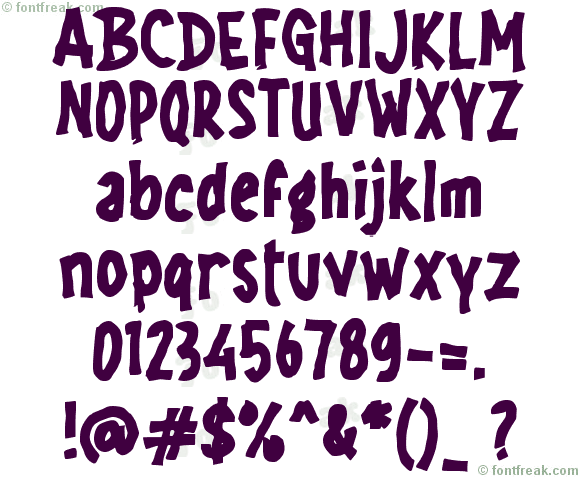
FODEN
About FODEN
FODEN, designed by Wahyu Eka Prasetya, is a captivating display font that draws attention with its unique and contemporary aesthetic. This sans-serif typeface showcases a bold and playful character, making it ideal for various creative projects. The font features a medium stroke weight with a balanced contrast that enhances legibility while adding a touch of sophistication. Its clean lines and well-defined shapes provide ample spacing, allowing for easy reading and a modern feel. FODEN’s distinctive style is punctuated by subtle decorative elements that give it personality without overwhelming the viewer.
This font is perfect for a variety of applications, including vibrant wedding invitations that require a touch of elegance, eye-catching movie posters that demand attention, and trendy restaurant menus that entice customers. Additionally, FODEN is well-suited for social media graphics and promotional materials aimed at small business owners looking to establish a memorable brand identity. Graphic designers and content creators will appreciate the versatility of this typeface, enabling them to create visually appealing designs across different platforms.
What sets FODEN apart is its ability to blend modern design principles with a touch of whimsy, making it a standout choice for anyone looking to make a statement in their work. With its captivating presence and versatile applications, FODEN is sure to enhance any design project, leaving a lasting impression on viewers.